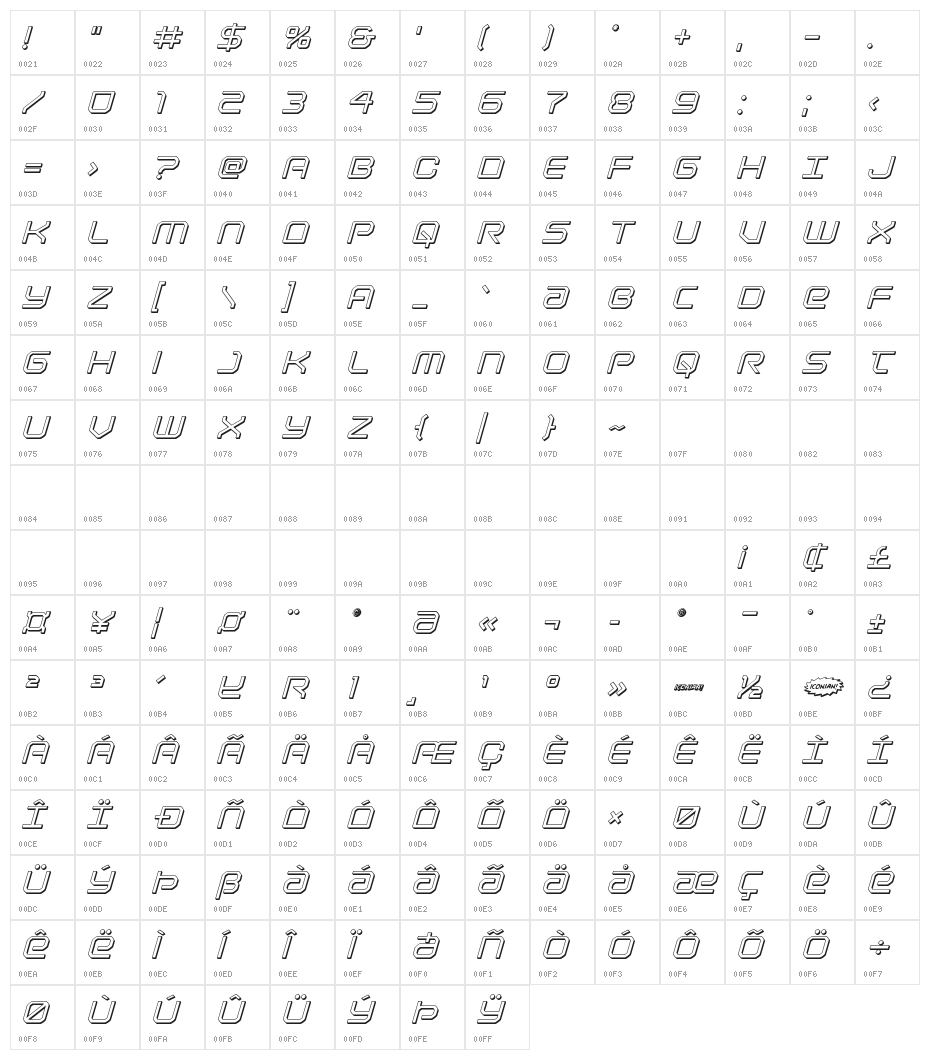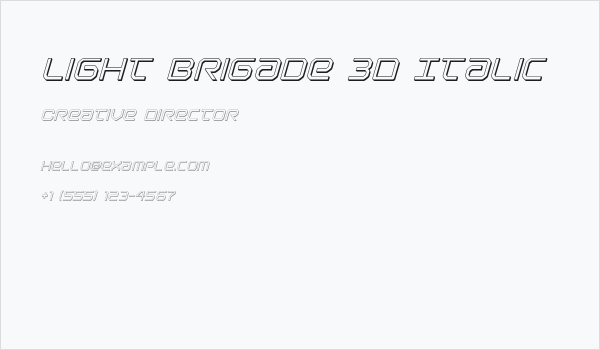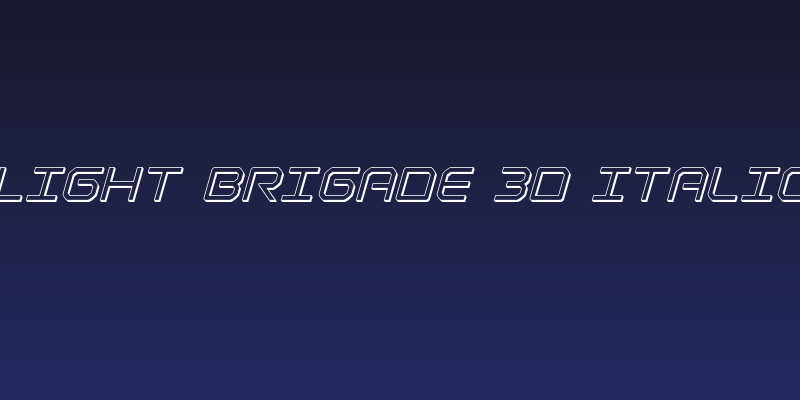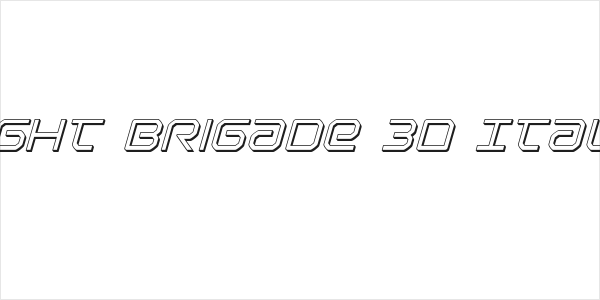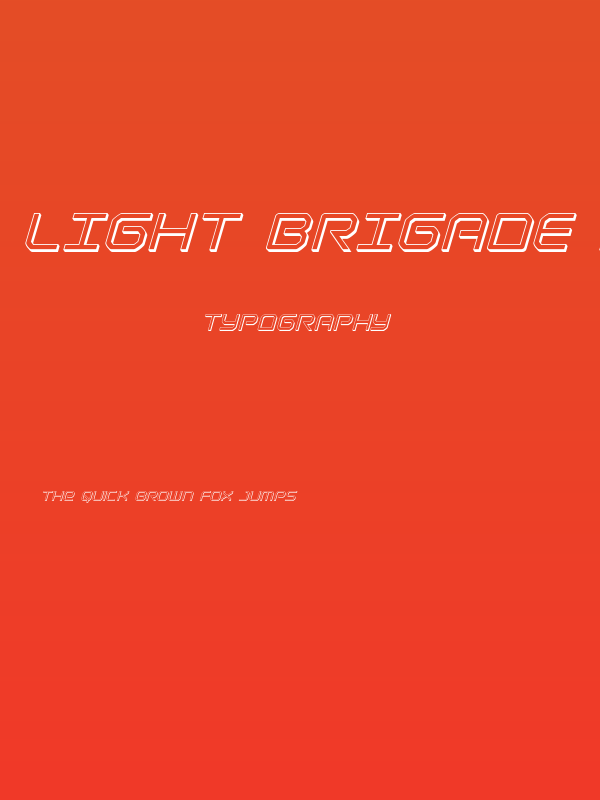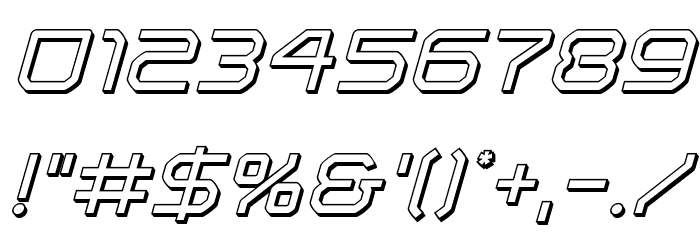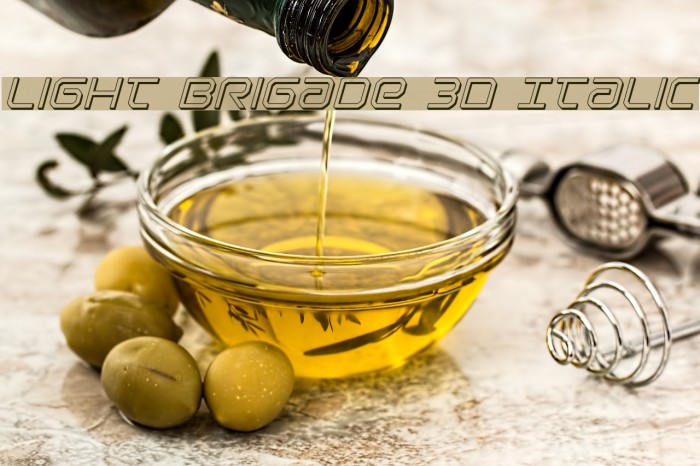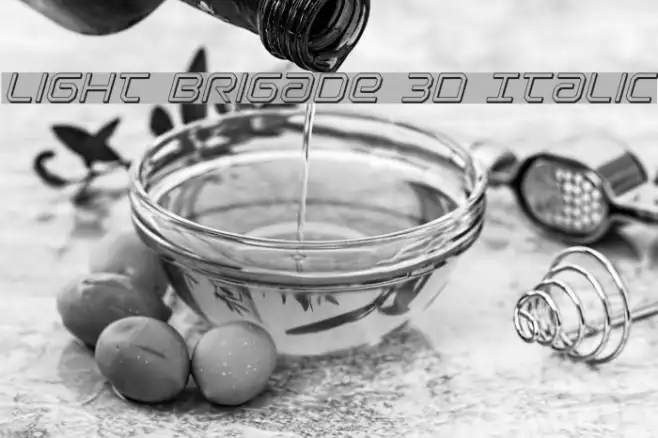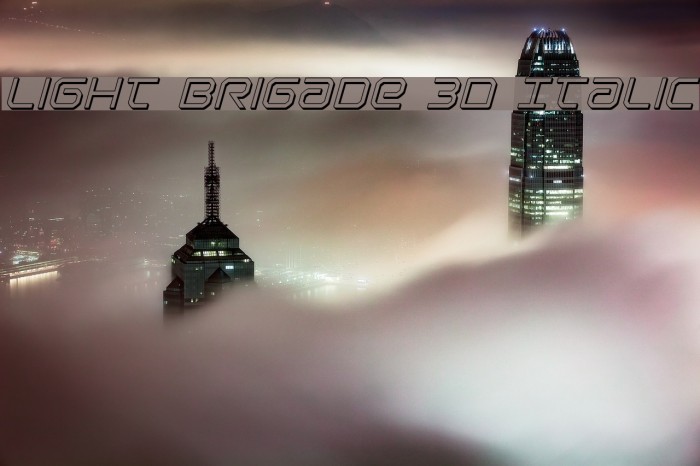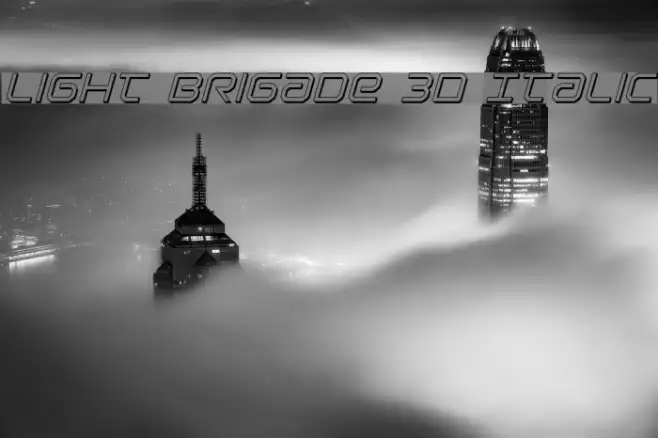
Light Brigade 3D Italic Font
Light Brigade 3D Italic Description
This font features a distinct 3D effect, giving each character a sense of depth and dimension. The letters are outlined with a bold, geometric style, creating a futuristic and dynamic appearance. The italic slant adds a sense of motion and speed, making it ideal for projects that require a modern and energetic look. The uppercase and lowercase letters maintain consistent styling, while the numerals and special characters complement the overall design. The font's structure is clean and precise, with a focus on readability despite its decorative elements.
| Proposed Projects | Ideal for futuristic branding, tech-related designs, video game titles, and dynamic posters. |